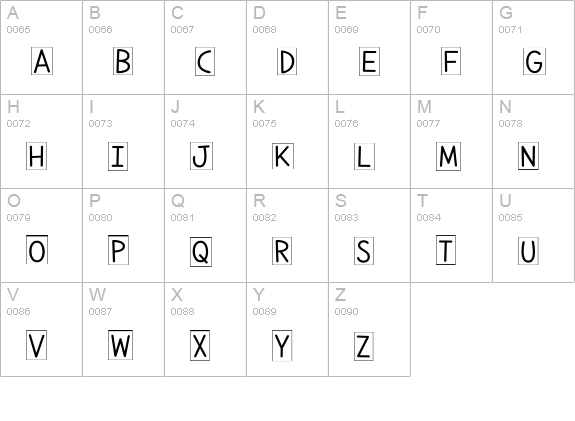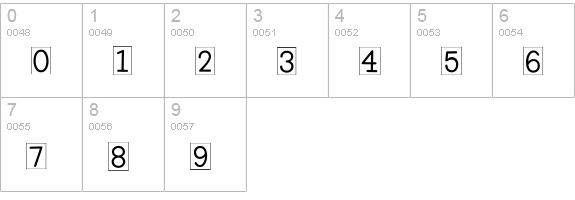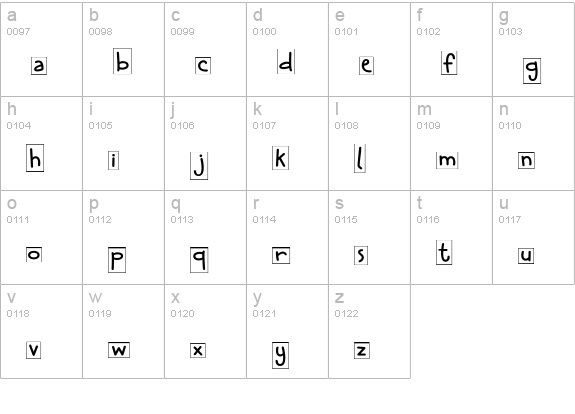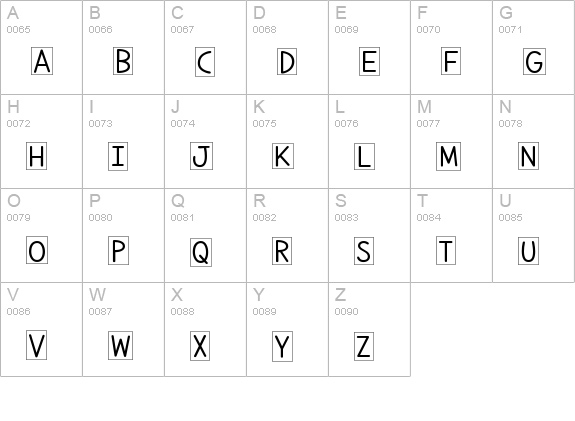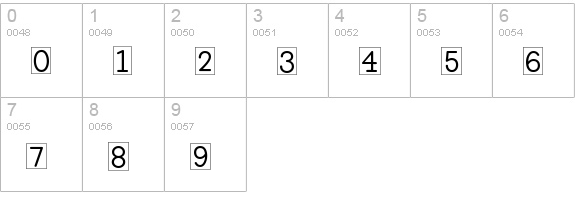
Cheddar Salad BTN Cameo Sq Font Details
Cheddar Salad BTN Cameo Sq font is a unique and eye-catching display font that exudes a playful and modern charm. Its bold and quirky design makes it perfect for adding a touch of personality to your projects. The font features a square shape with rounded edges, giving it a distinctive and contemporary look. One of the best things about Cheddar Salad BTN Cameo Sq font is that it is completely free to use. You can easily download it from FontsMarket.com and start using it in your designs right away. Whether you're creating posters, flyers, logos, or any other type of design, this font is sure to make a statement. With its fun and whimsical aesthetic, Cheddar Salad BTN Cameo Sq font is a versatile choice for a wide range of design projects. Give your designs a fresh and modern look with this free font today!